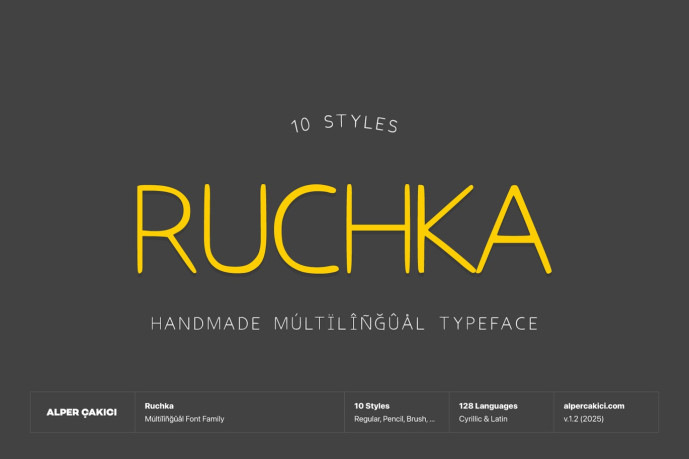
Ruchka – Handwritten Multilingual Font
Designer: Alper Çakıcı
Ruchka is a charming handwritten font family designed to bring warmth, personality, and playful character to every creative project. With smooth curves, expressive strokes, and an authentic hand-drawn feel, Ruchka blends friendliness with versatility.
The family includes 10 handcrafted styles:
Ruchka Regular, Ruchka Italic, Ruchka Angular, Ruchka Angular Italic, Ruchka Brush, Ruchka Brush Italic, Ruchka Pencil, Ruchka Pencil Italic, Ruchka Rough, and Ruchka Rough Italic
With support for 128 languages, Ruchka is ready for global and multicultural projects. Whether your work calls for sweetness, charm, or artisan texture, Ruchka lifts designs with an approachable, joyful touch.